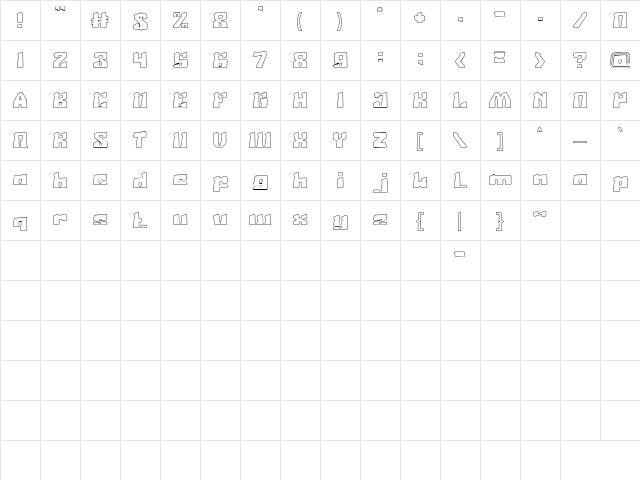
Complete Age Of Science and Technology-H Regular glyph index. Displaying only characters natively supported by Age Of Science and Technology-H Regular font.
Age Of Science and Technology-H has a distinctly futuristic character, with geometric precision and clean angles that feel at home in technology, gaming, and sci-fi contexts.
Pro Tip: Try Age Of Science and Technology-H with generous letter-spacing in UI labels and navigation - the geometric forms benefit from room to breathe.